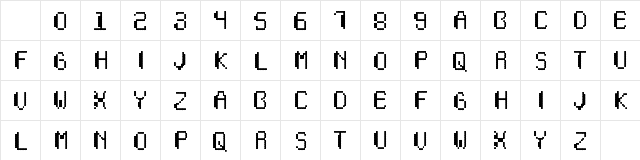
Wapikselo 042015 is a composed and adaptable typeface that performs quietly and consistently across a wide range of design contexts.
Pro Tip: Use Wapikselo 042015 in both headline and body roles to test its range before committing to a single application.